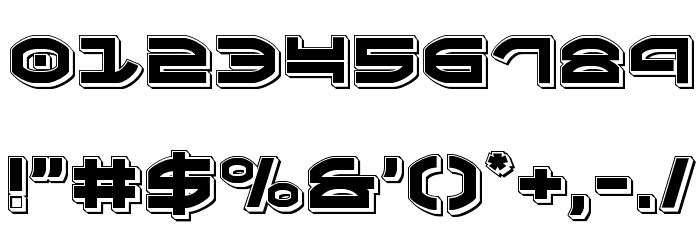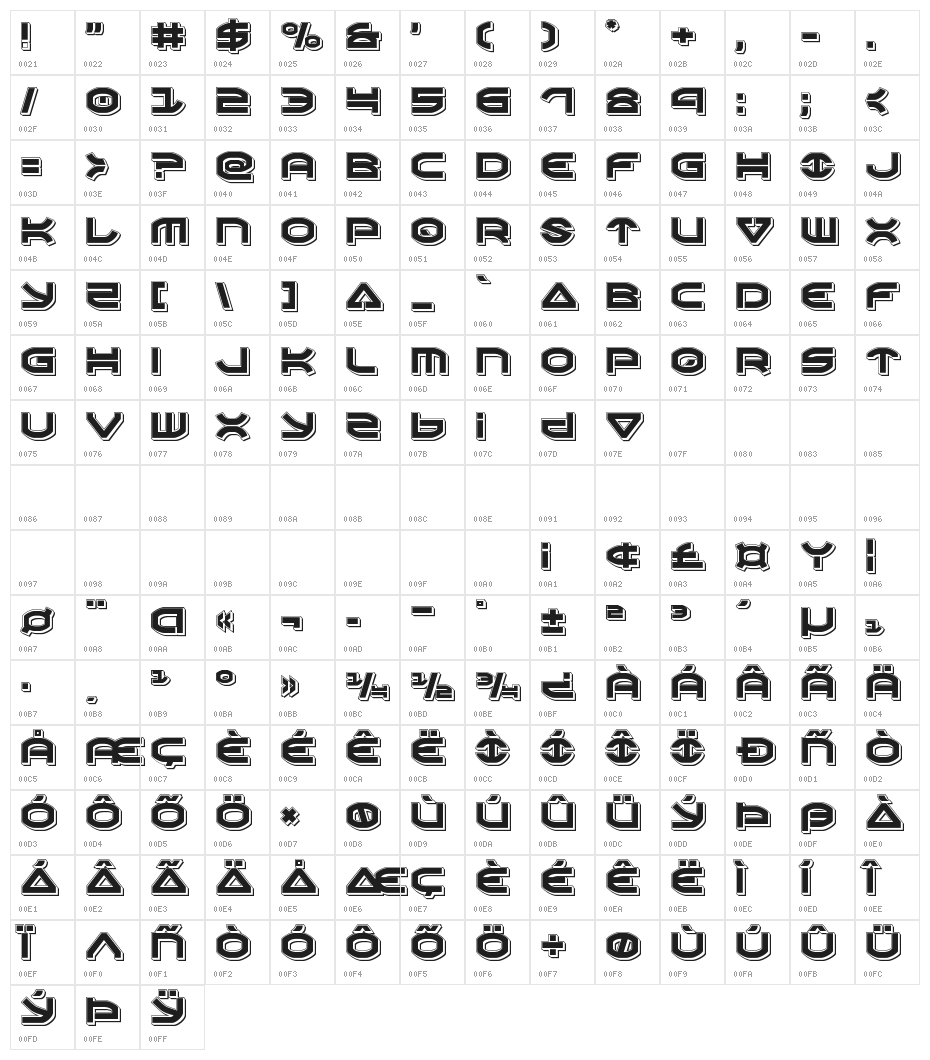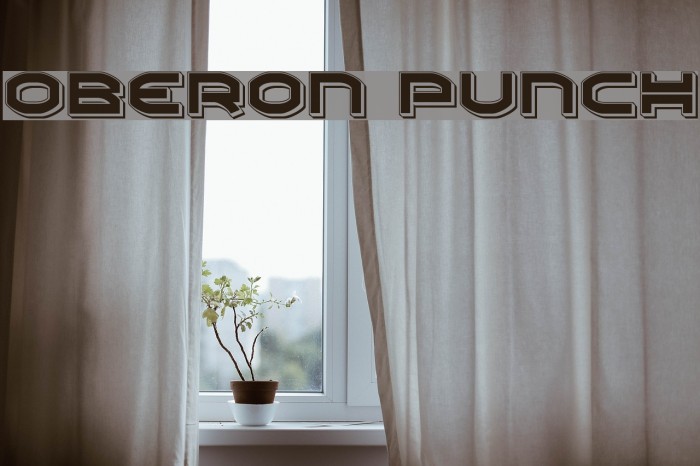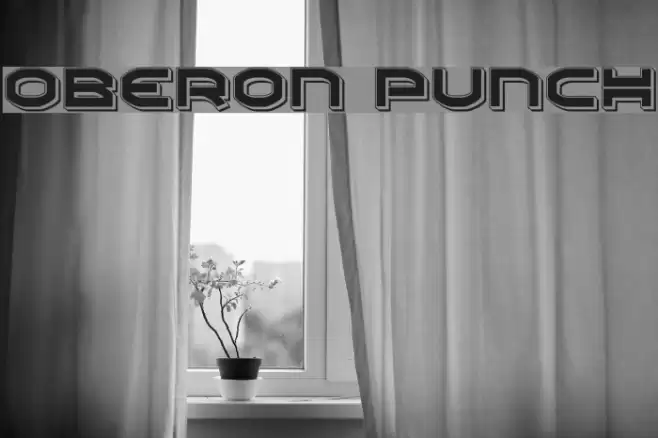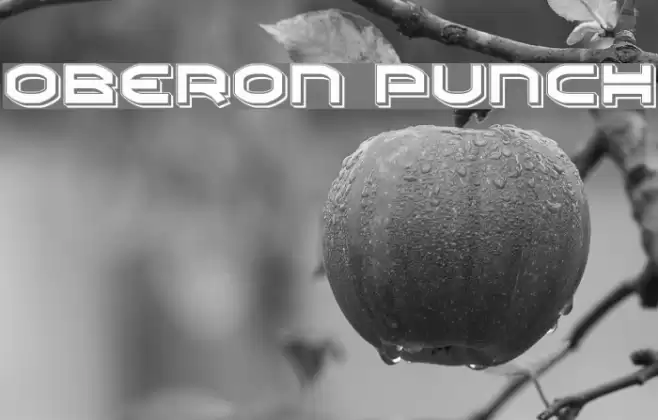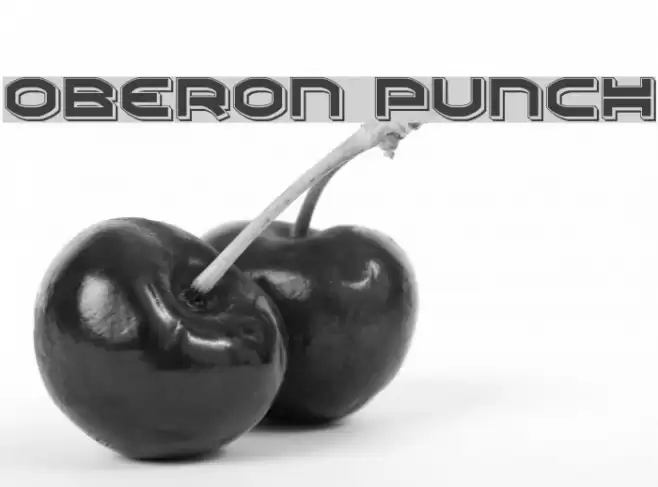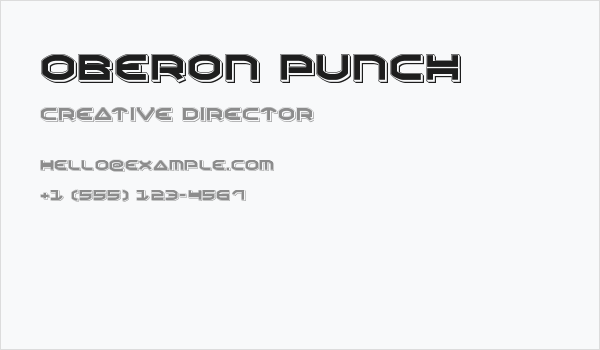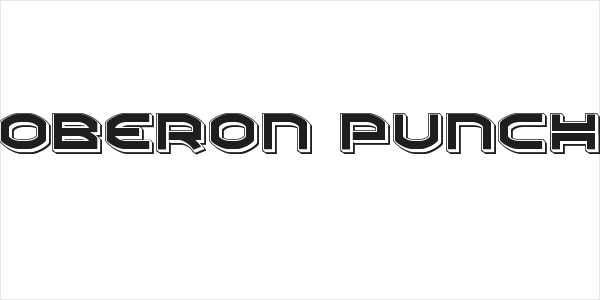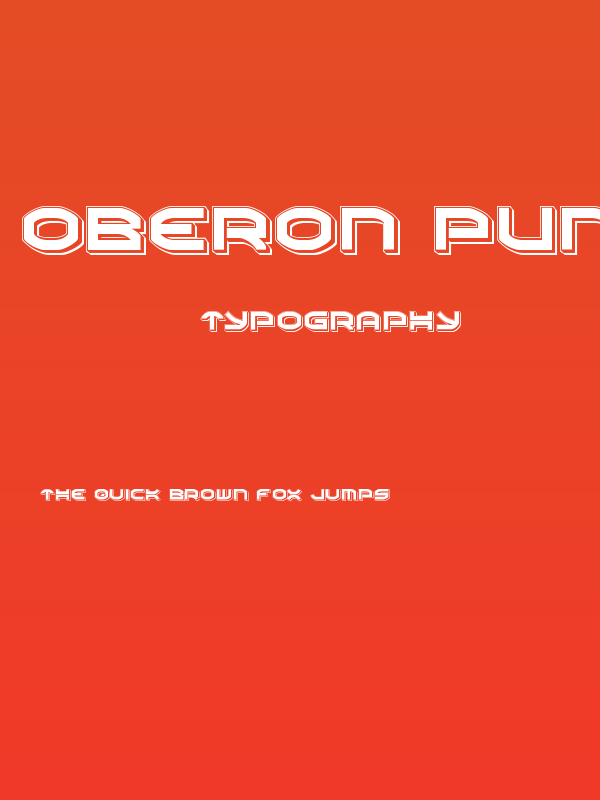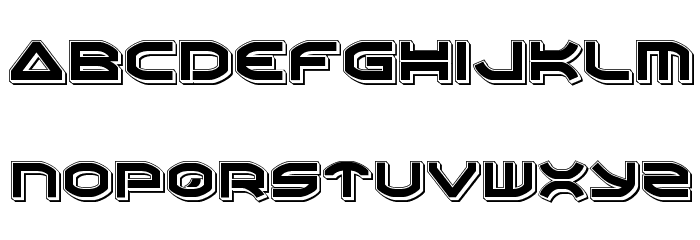
Oberon Punch Font
Oberon Punch Description
This font features a bold and futuristic design with a distinct geometric style. The characters are outlined, creating a hollow effect that adds depth and dimension. The angular and sharp edges give it a modern and tech-inspired appearance, making it stand out in any design. The uppercase and lowercase letters maintain a consistent style, while the numerals and special characters complement the overall aesthetic. This font is ideal for projects that require a bold statement and a contemporary look.